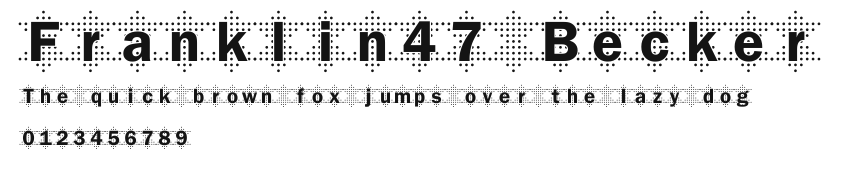
Franklin47 Becker Preview
• Font Name: Franklin47 Becker
• Full Font Name: Franklin47 Becker
About Franklin47 Becker.ttf
Franklin47 Becker.ttf is a modern, elegant sans-serif font designed for ultimate readability and visual harmony. Perfect for branding, headlines, web design, and print materials.